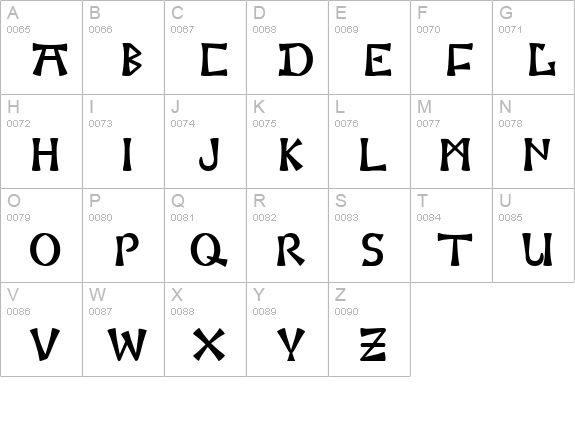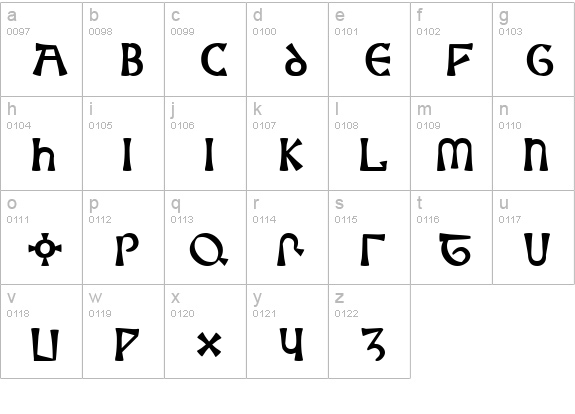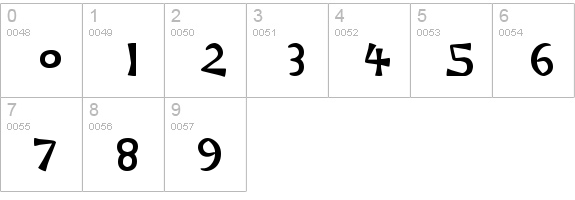
Moneta Font Details
Moneta font is a beautifully crafted typeface that exudes elegance and sophistication. With its classic yet modern design, Moneta is perfect for a wide range of design projects, from branding to editorial design. The clean lines and balanced proportions of this font make it highly versatile and easy to read, making it an excellent choice for both print and digital applications. One of the best things about Moneta font is that it is free to download at FontsMarket.com. This means that you can easily access this high-quality font without any cost, making it a valuable addition to your design toolkit. Whether you are a professional designer or a hobbyist looking to enhance your projects, Moneta font is a fantastic option that won't break the bank. Download Moneta font today and elevate your designs with its timeless beauty and versatility.